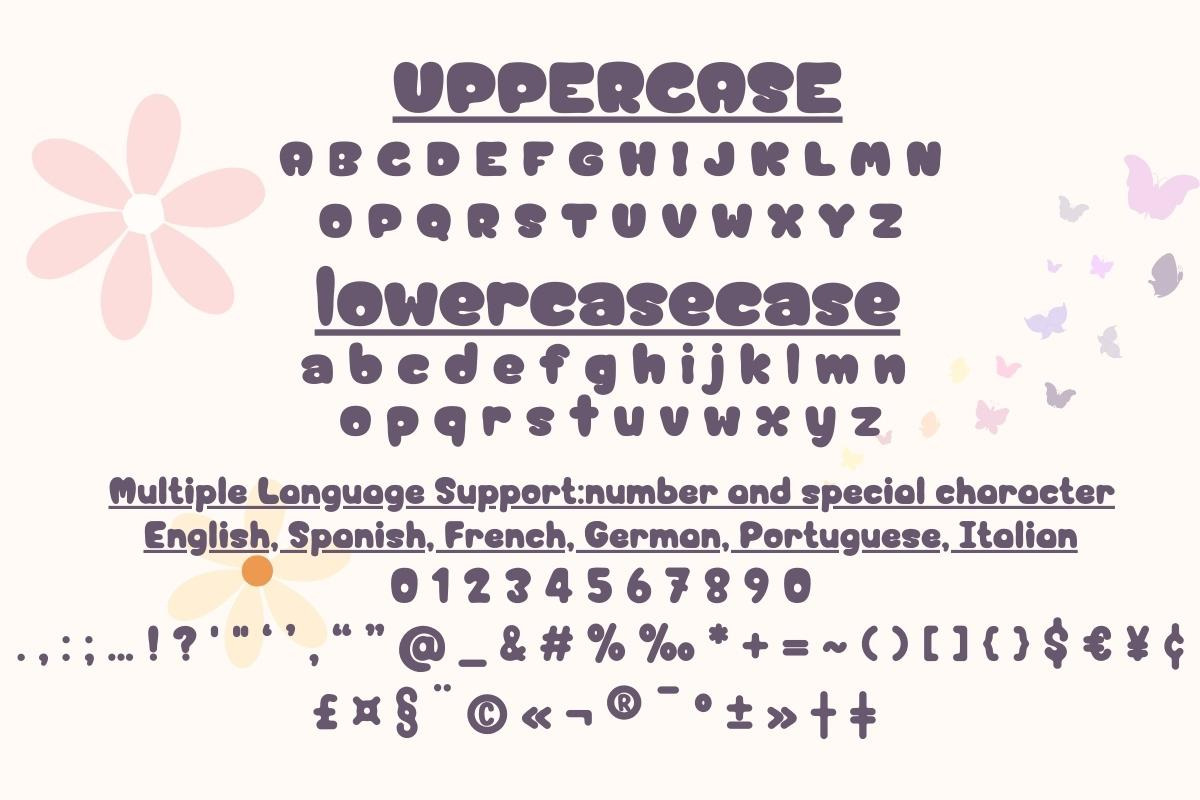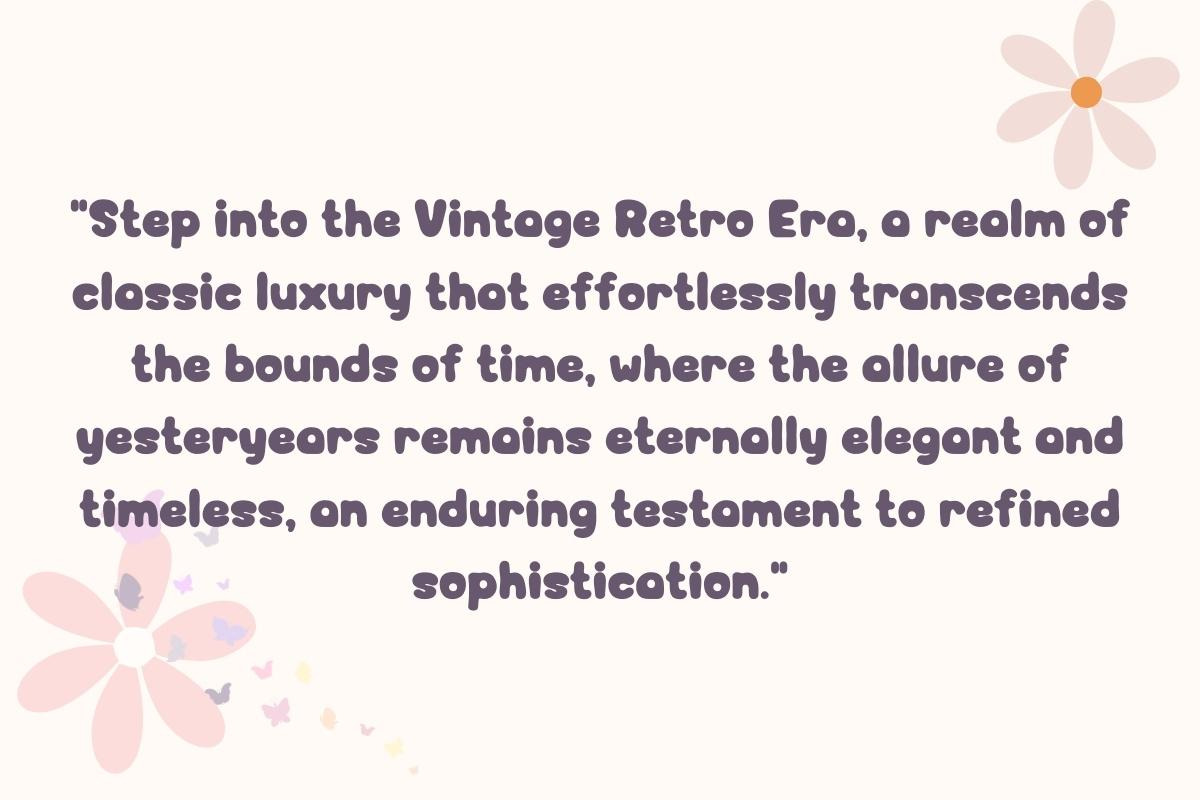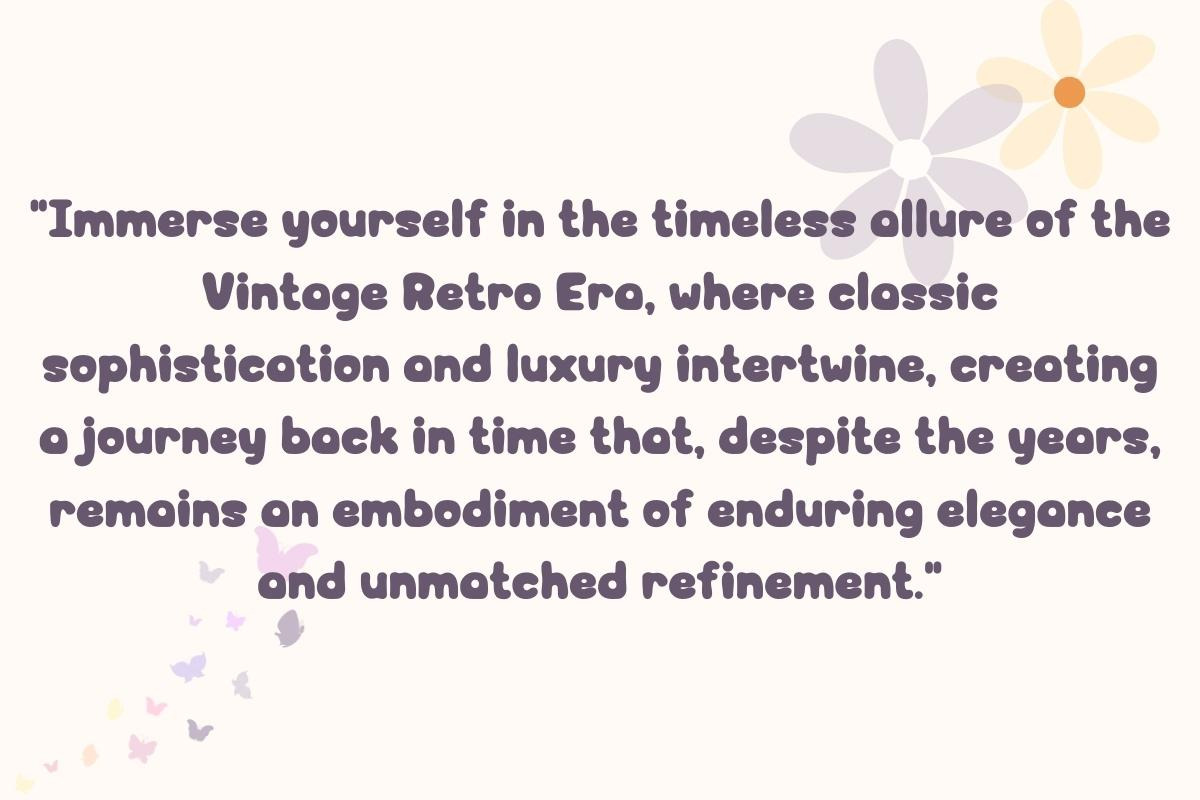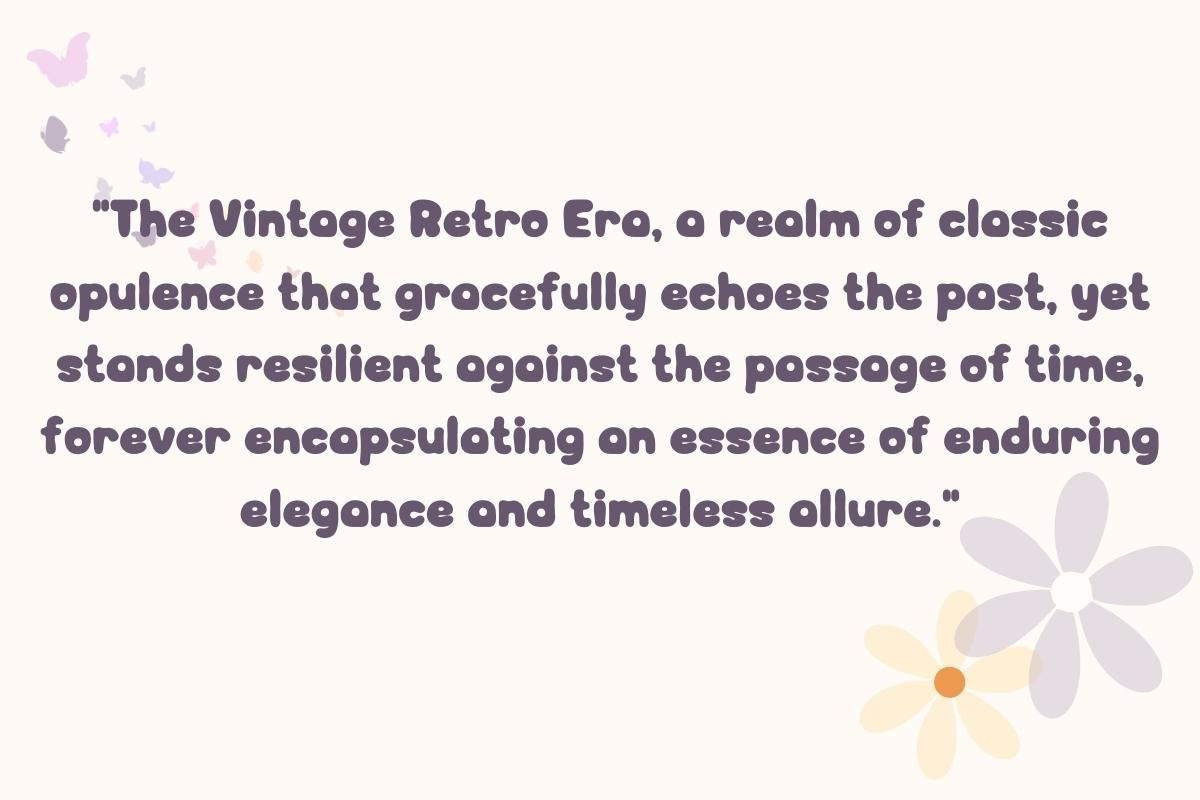
Vintage Retro Era - Handwritting
"In the Vintage Retro Era, a realm of classic luxury unfolds, reminiscent of a bygone era, yet steadfastly unlost to time, much like the font it inspired, where every letter is a graceful embodiment of an elegance that transcends its historical roots, remaining timeless and sophisticated."